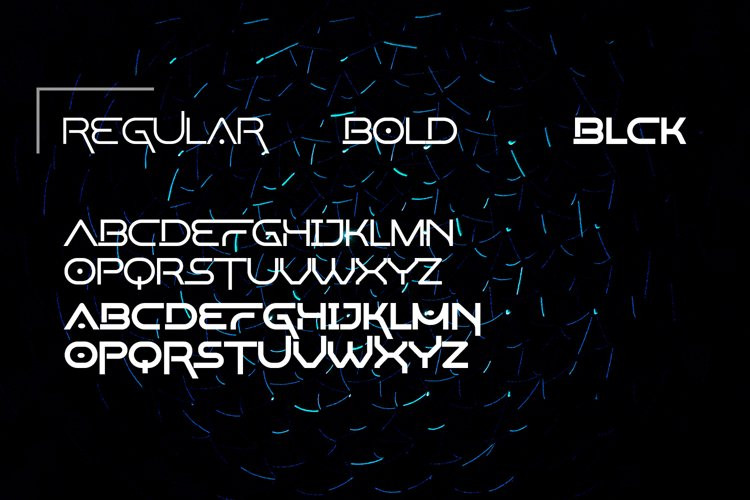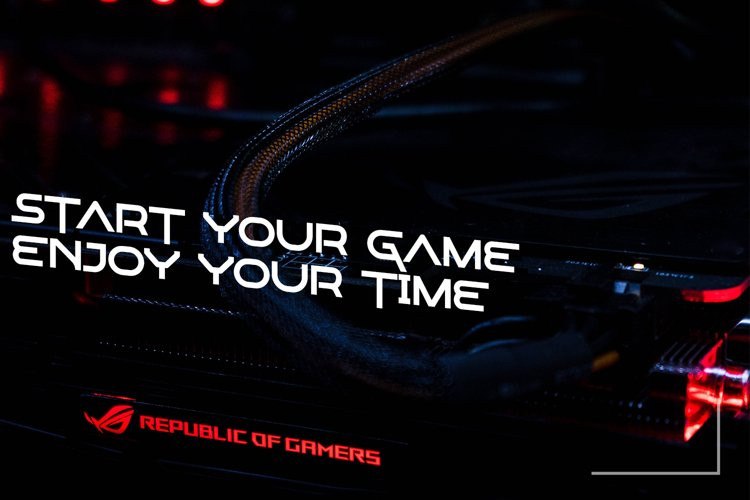
Spacetron Font
Spacetron FontSpacetron is a modern, elegant and futuristic display font. This font would be ideal for writing web designs, business cards, or pretty much anything else that requires a unique touch.